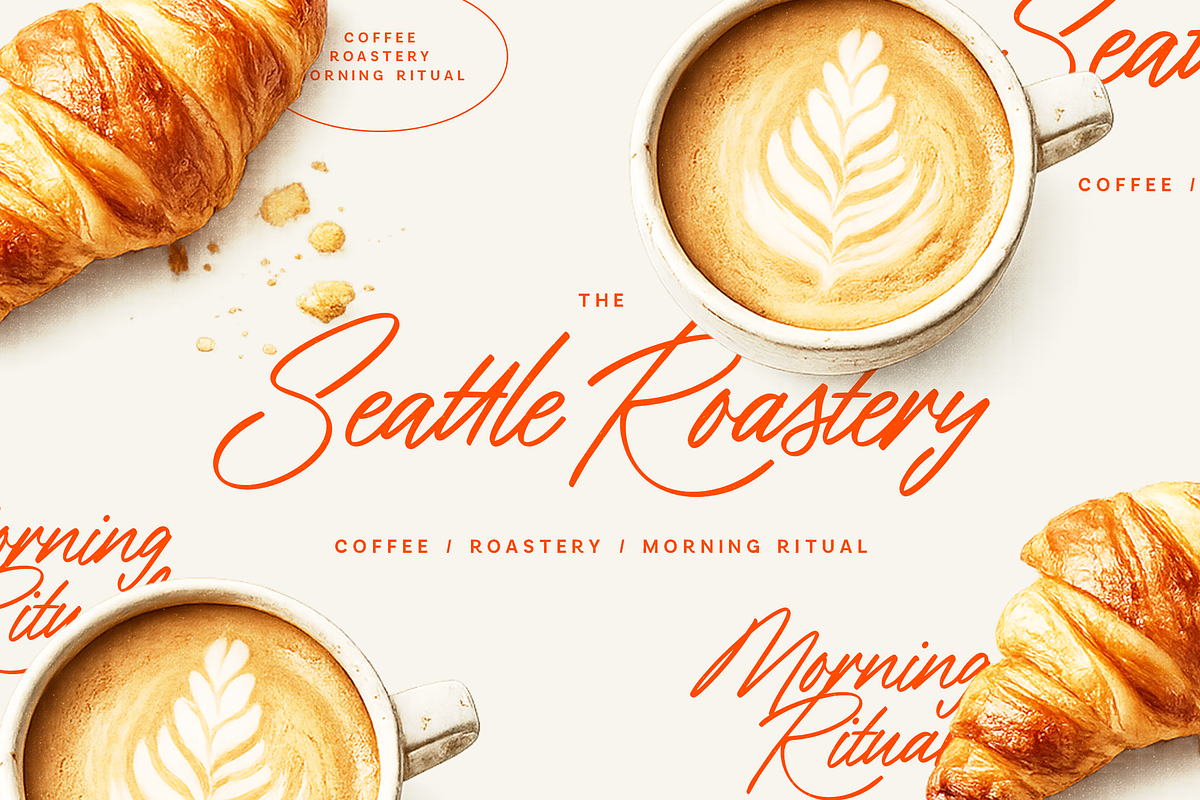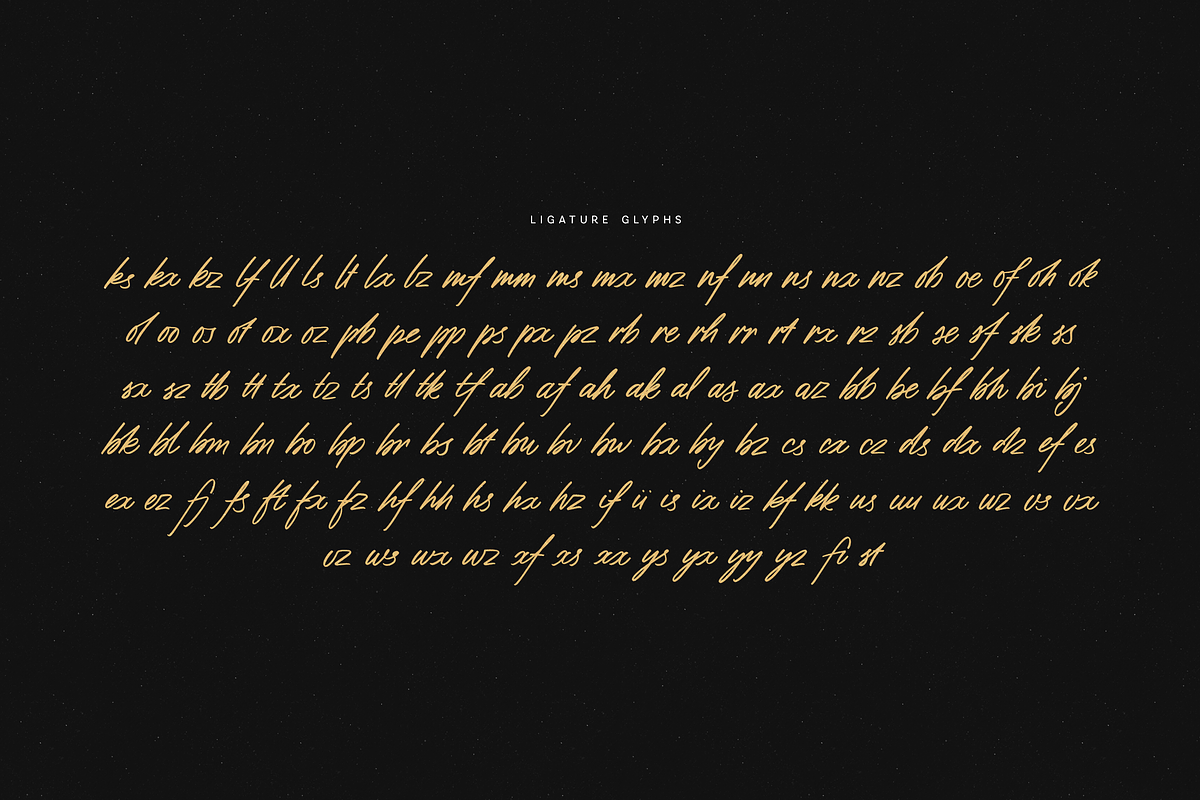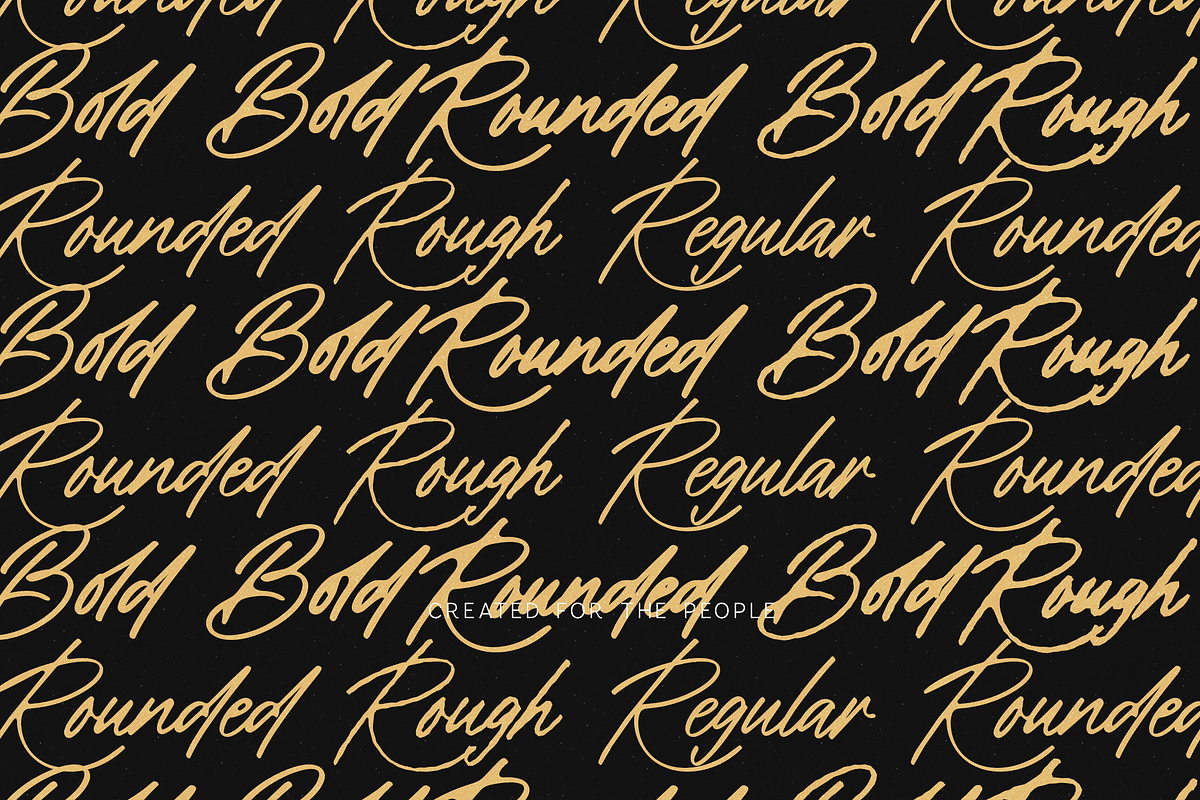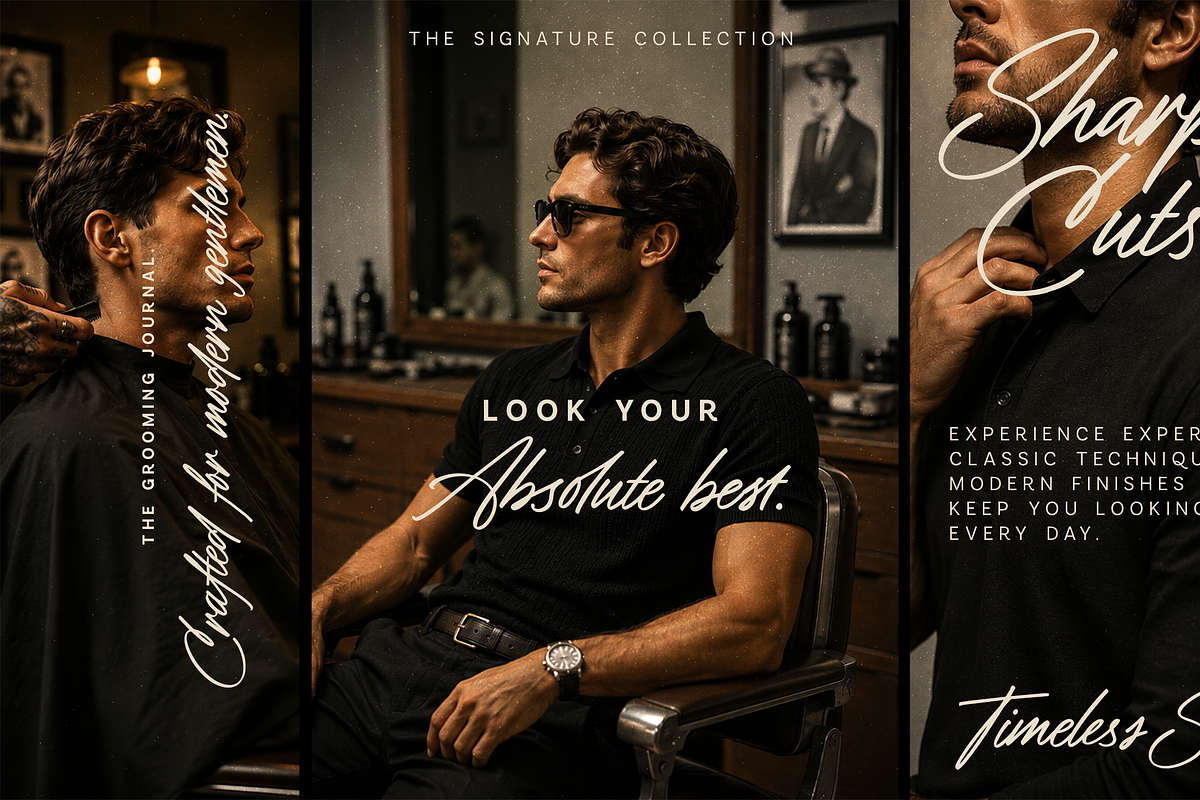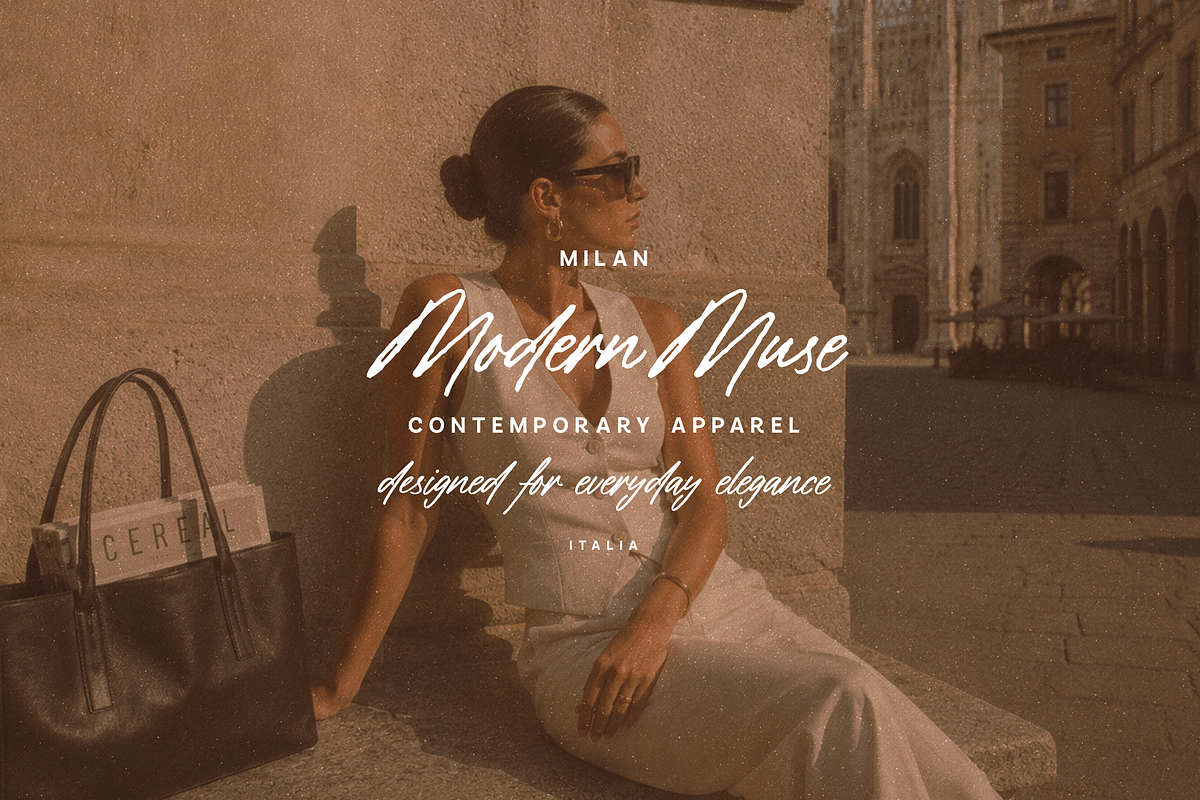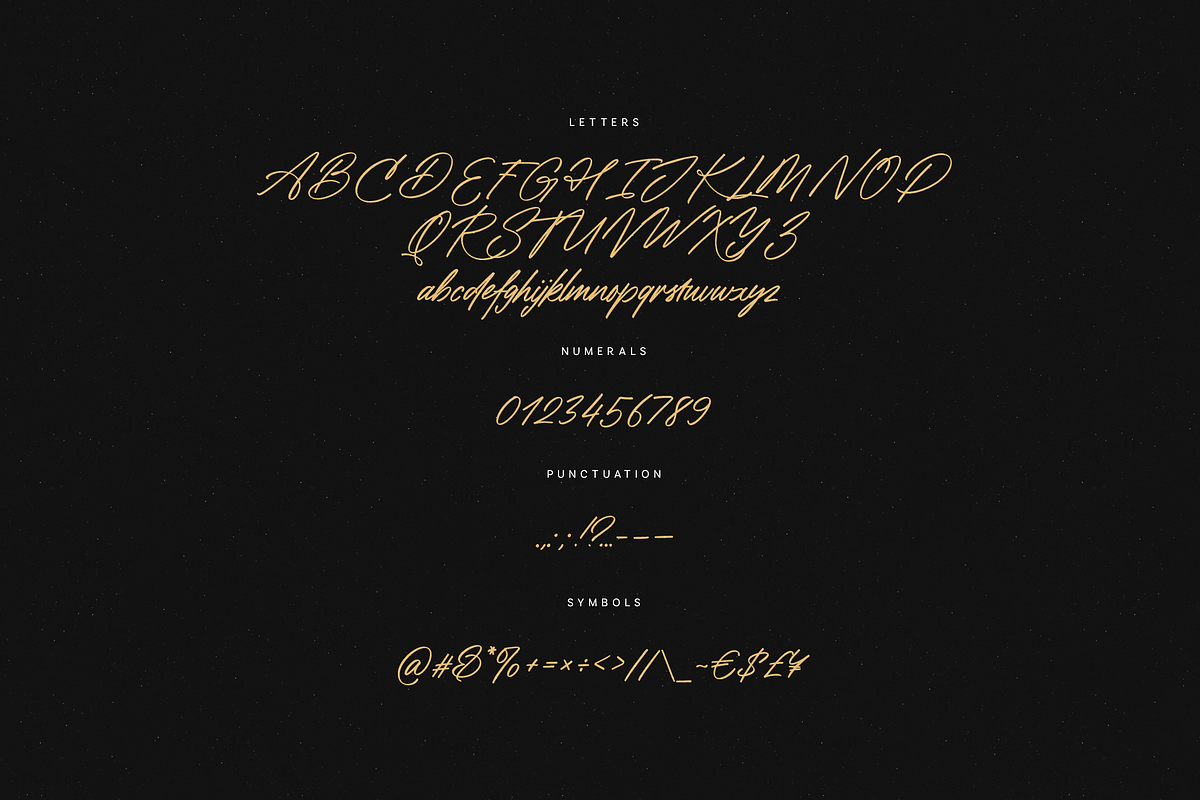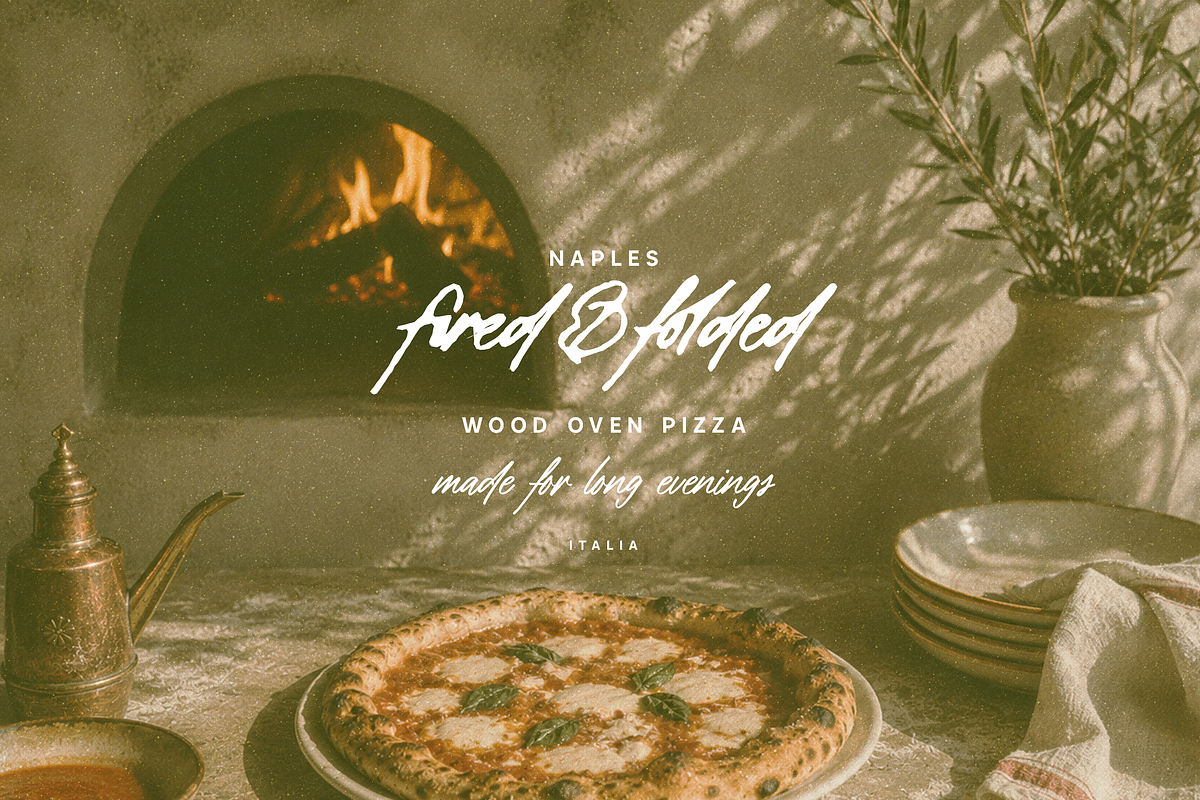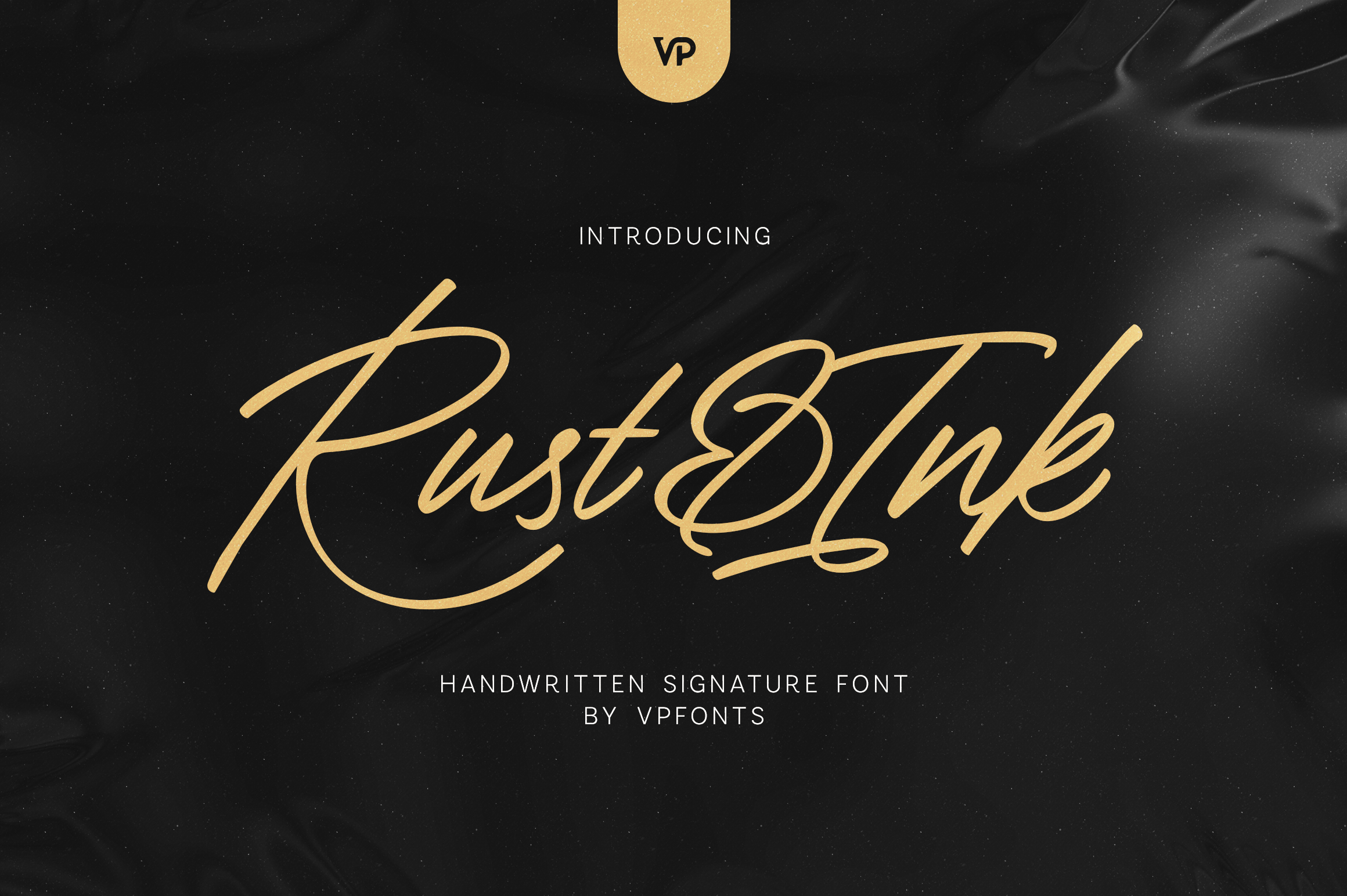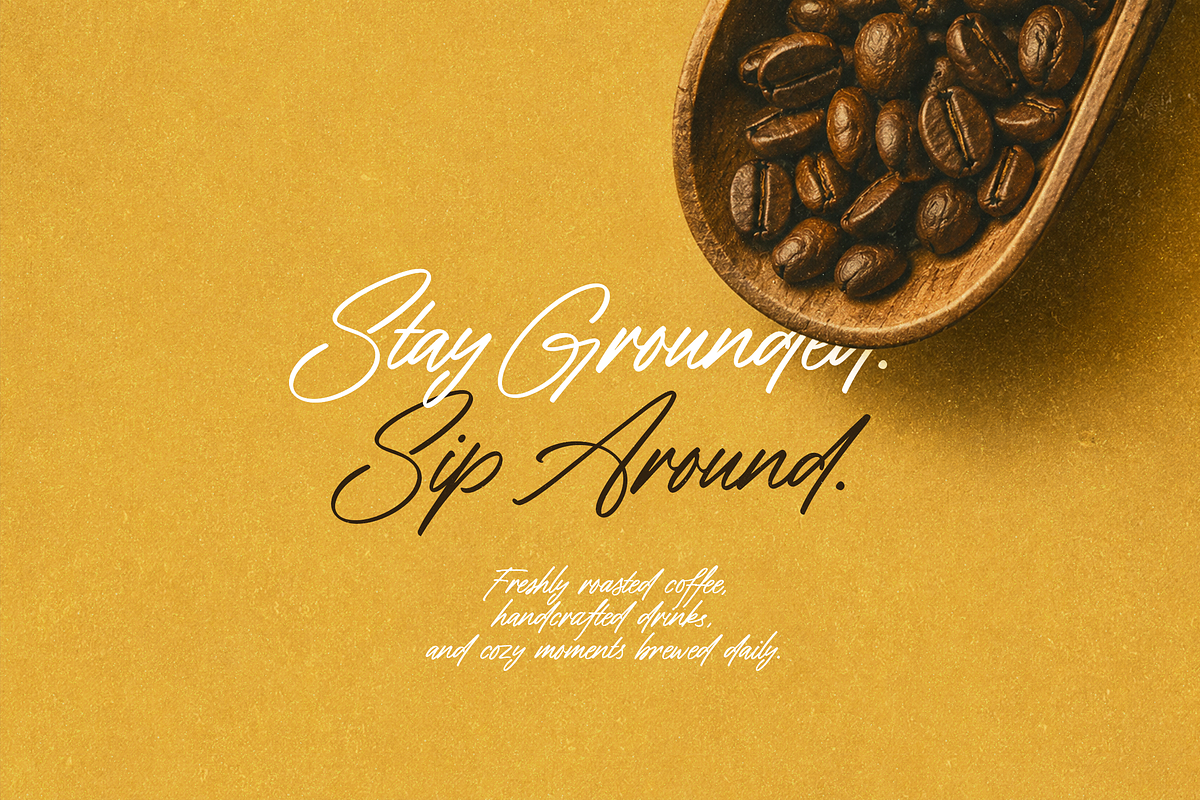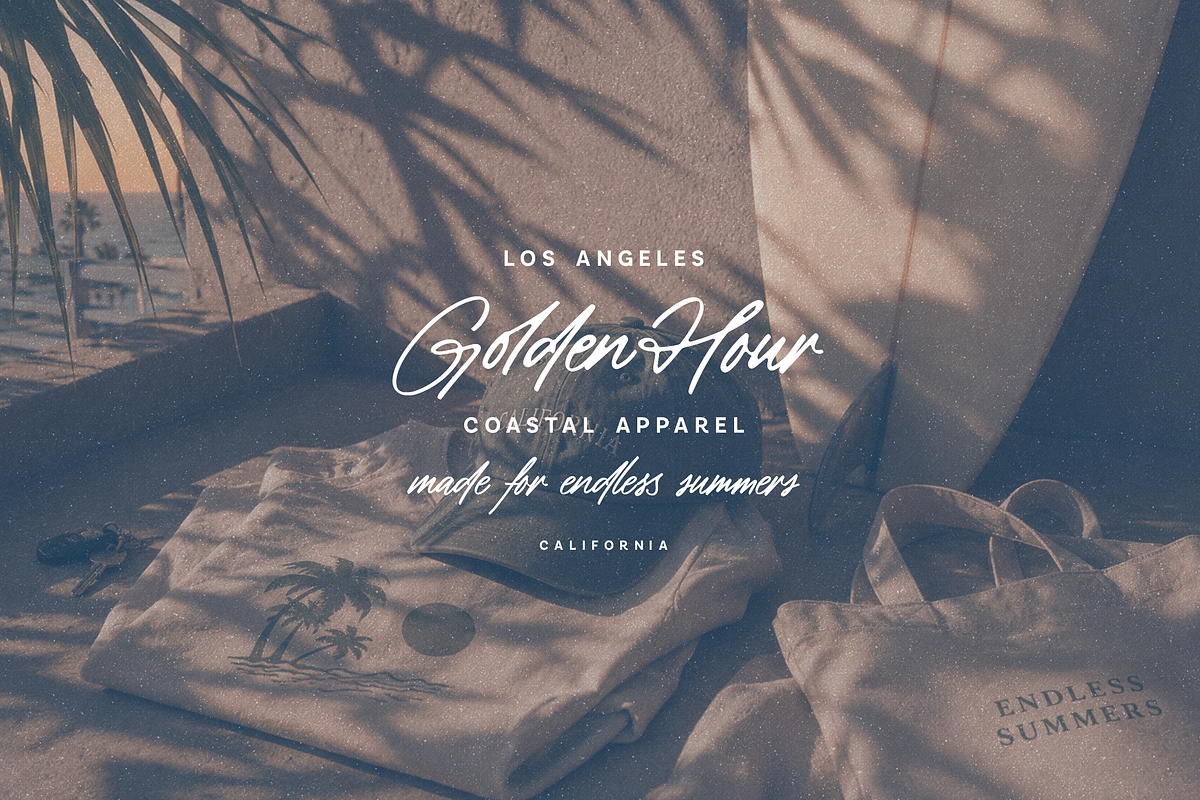
Rust & Ink - Handwritten Font
Rust & Ink is a bold and expressive handwritten signature font created with natural movement, authentic ink texture, and effortless personality. Its energetic strokes, stylish curves, and imperfect details give every design a genuine hand-lettered appearance while remaining clear and versatile.
Available in Regular and Bold styles, Rust Ink makes it easy to create striking contrast across headlines, logos, packaging, and editorial layouts. A collection of carefully designed ligatures helps words connect more naturally, giving names, quotes, and brand messages a distinctive custom-lettered finish.
Rust Ink is ideal for signature logos, fashion branding, coffee shops, restaurants, product packaging, social media graphics, wedding stationery, beauty brands, photography watermarks, magazines, posters, and creative advertising.
Regular and Bold styles, rounded and rough editions
Uppercase and lowercase letters
Stylish ligatures
Numerals and punctuation
Currency signs and symbols
Extensive multilingual support
Natural handwritten ink texture
From refined signatures to bold lifestyle branding, Rust Ink adds movement, warmth, and handcrafted character to every project. Create memorable typography that feels confident, modern, and genuinely written by hand.